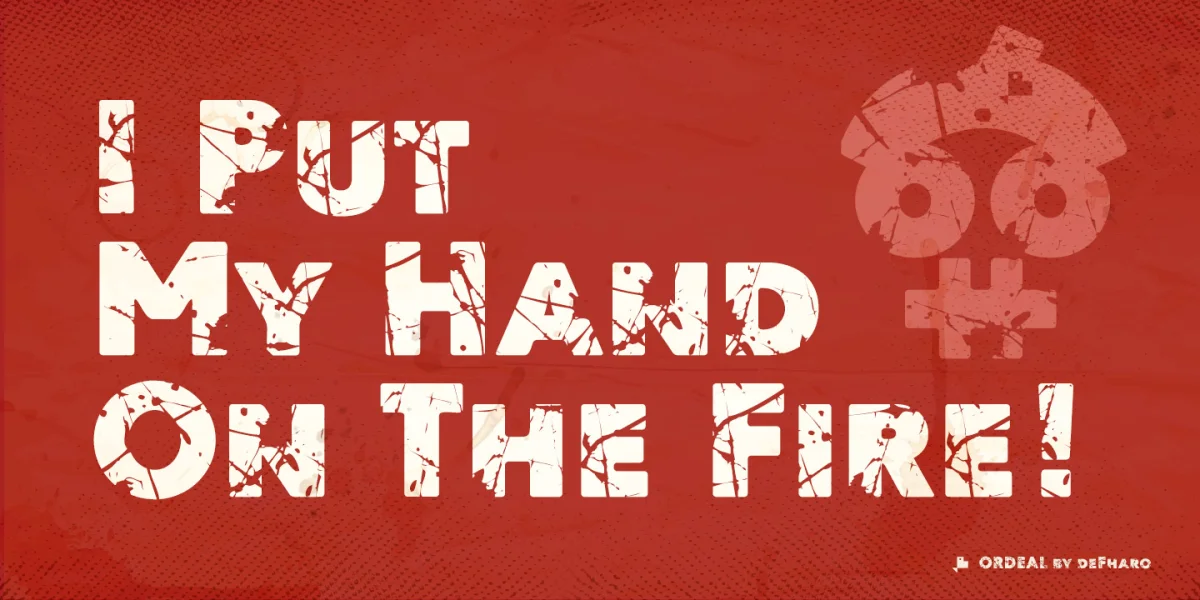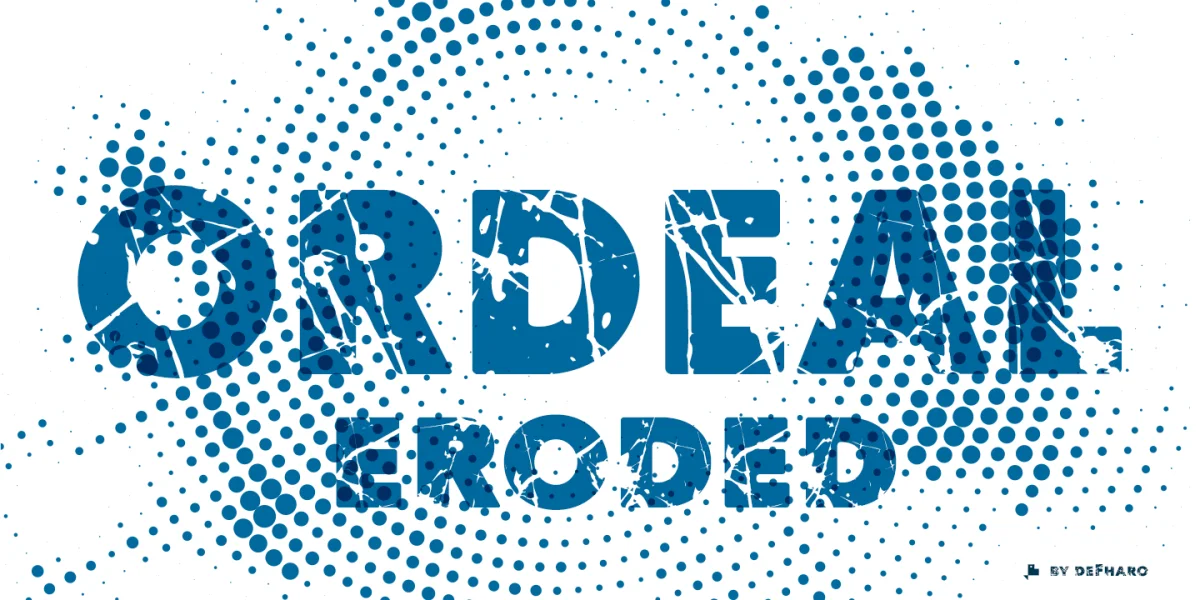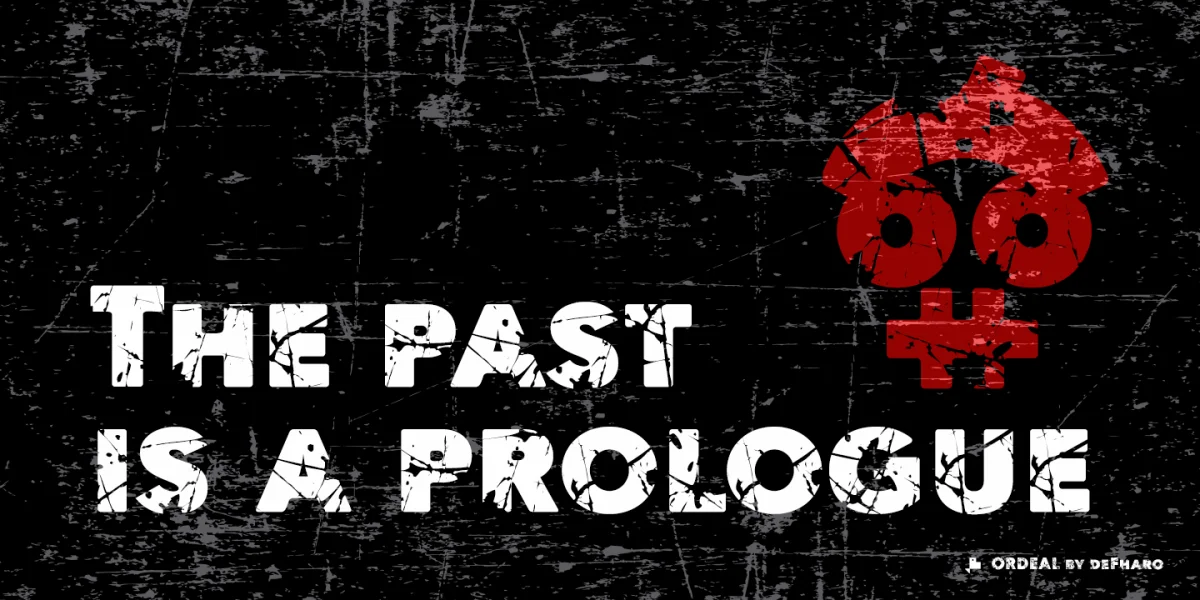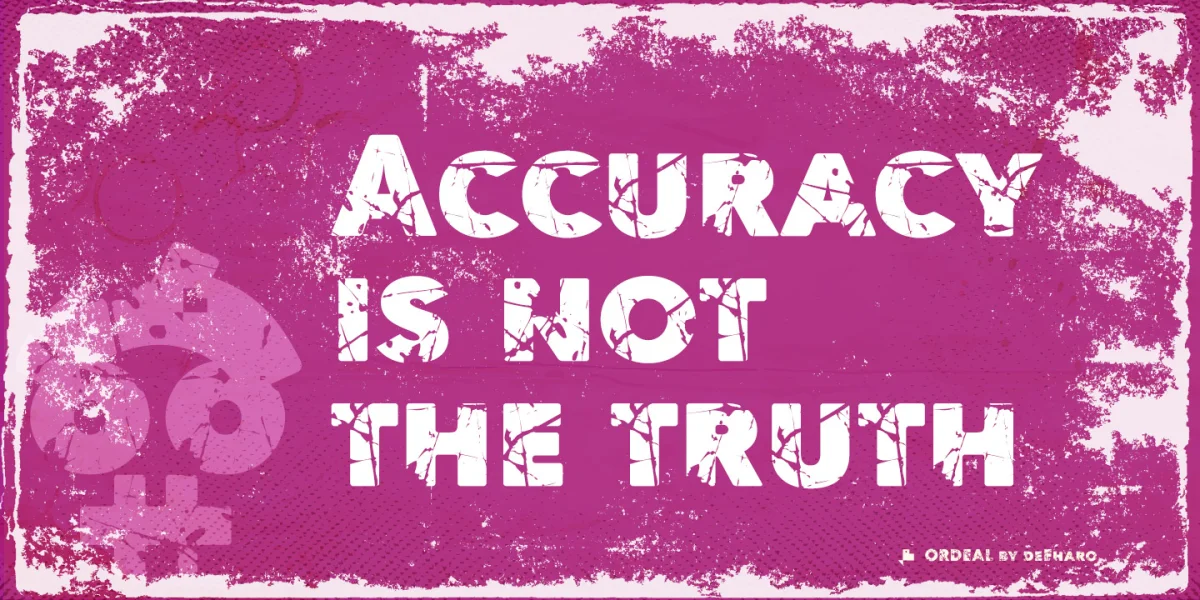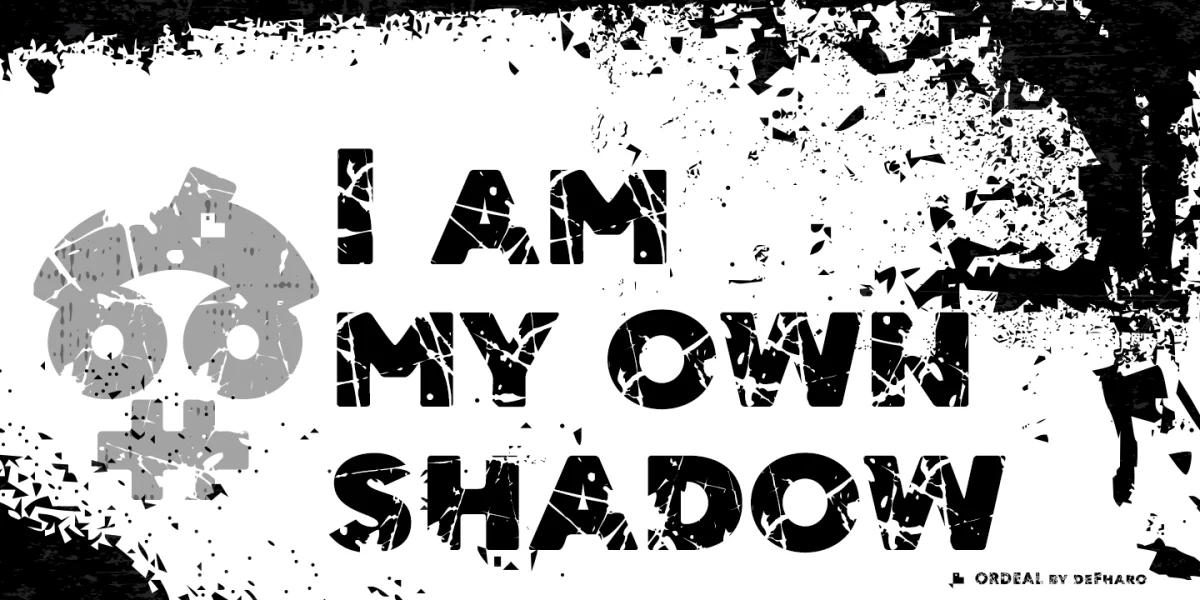
Ordeal Eroded is the tragic result of a calvary of ordeals applied to a Sans Serif typeface, this typeface is based on a very black version of Paloseco where typographic wear and tear are captured in this display font with a unique personality and proven innocence.
With full support for all Latin-derived languages and OpenType features, this font is a versatile solution for any advertising or brand design where you intend to capture a unique and genuine look.